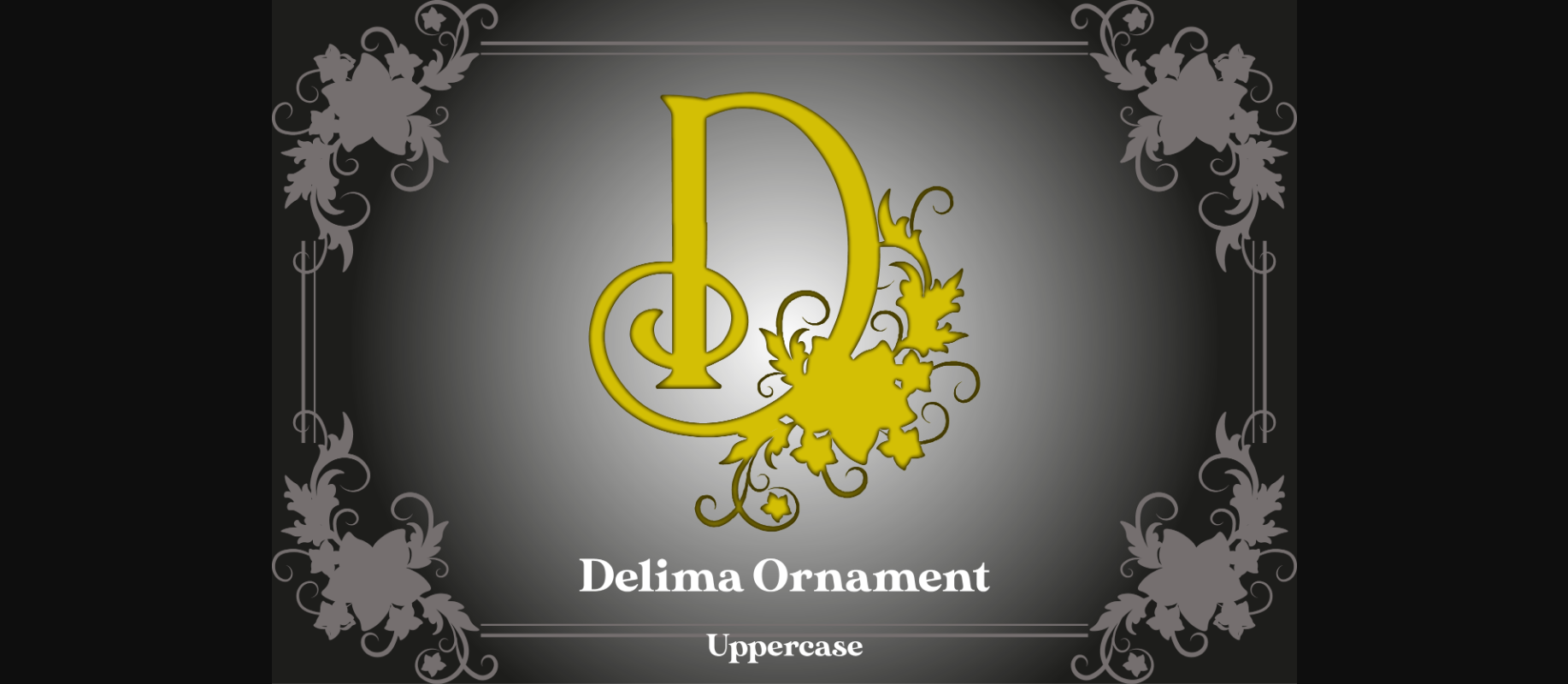
About Delima Ornament Font
Delima Ornament is a unique and interesting decorative font. It is suitable for various products such as mugs, t-shirts, business cards, logos, and various souvenirs.